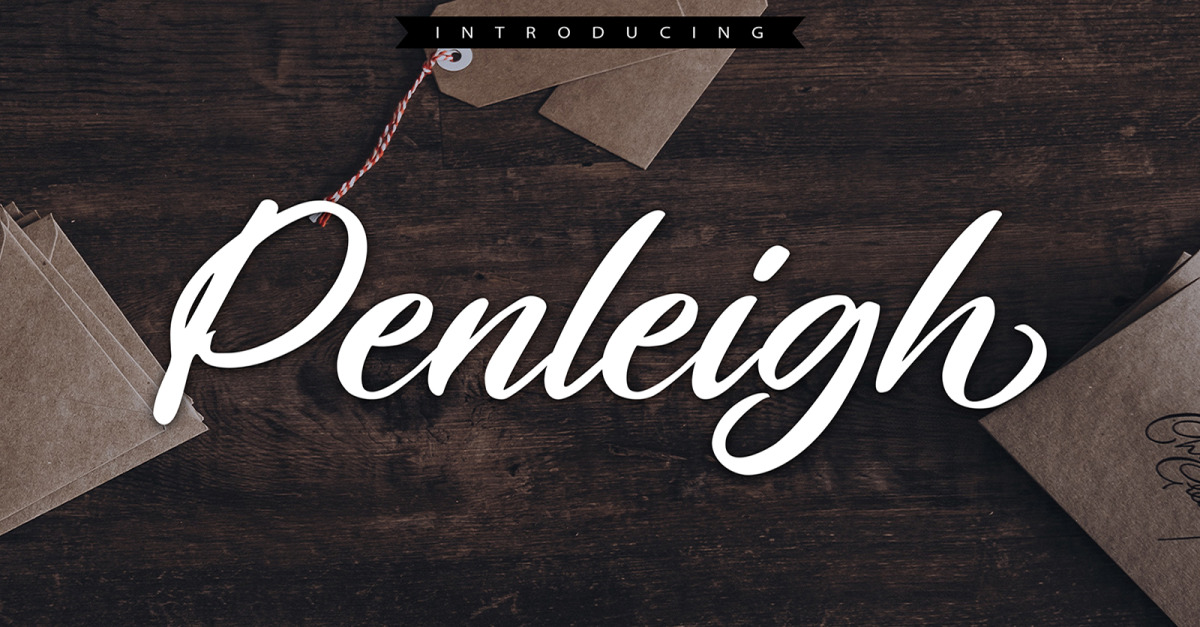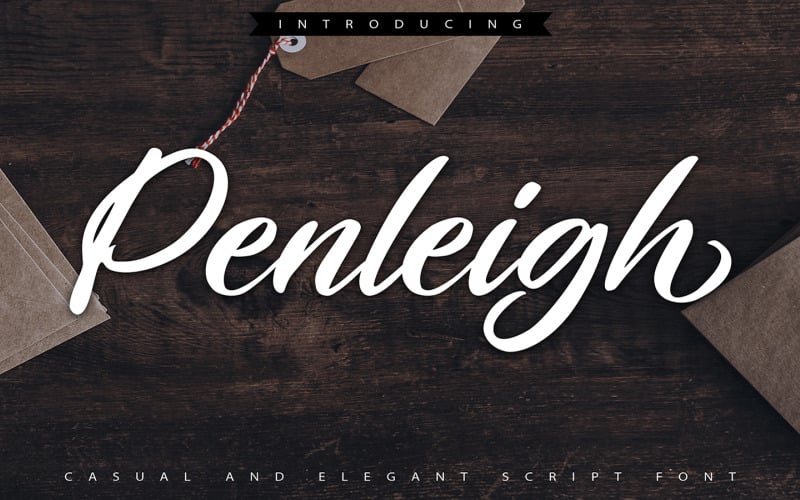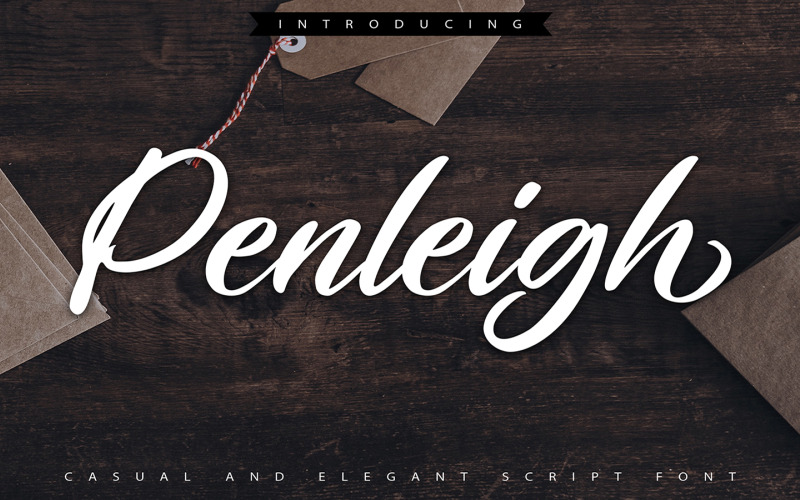
Penleigh | Casual & Elegant Cursive Font
**Penleigh | Casual & Elegant Script Font** with a calligraphy style, So beautiful on invitation like greeting cards, branding materials, business cards, quotes, posters, and more!